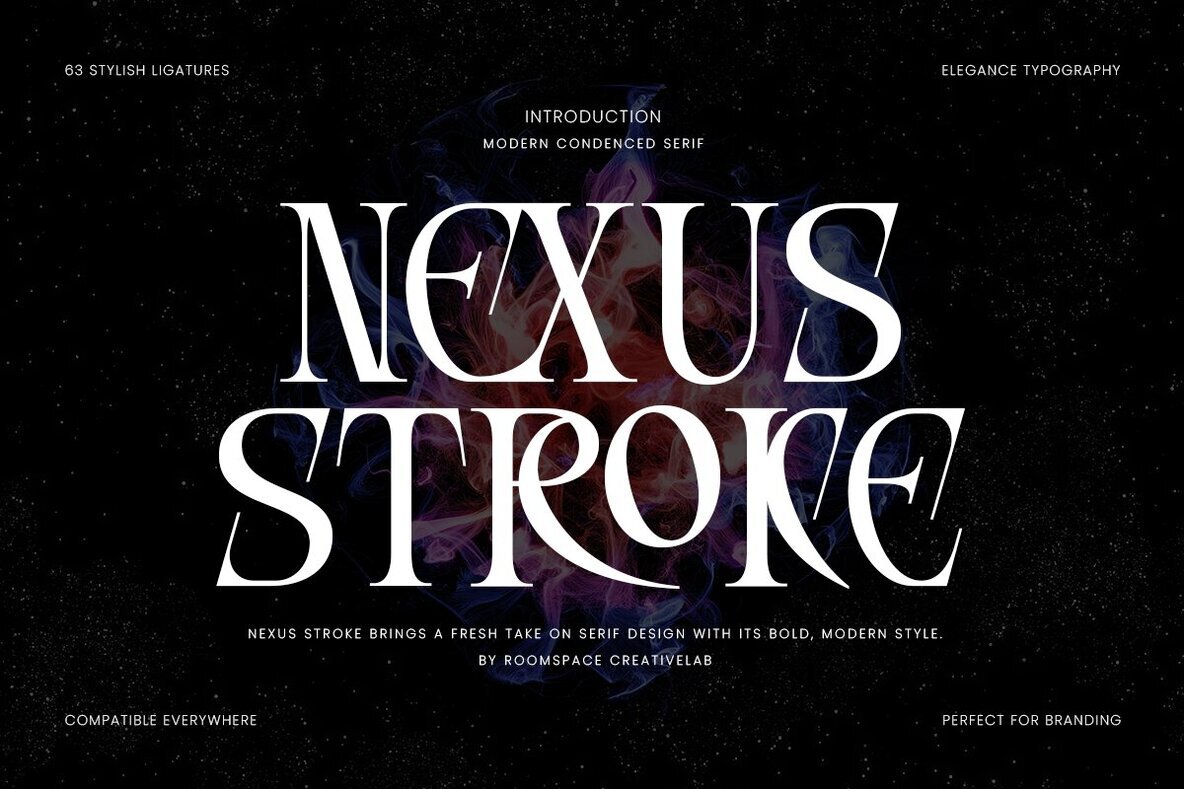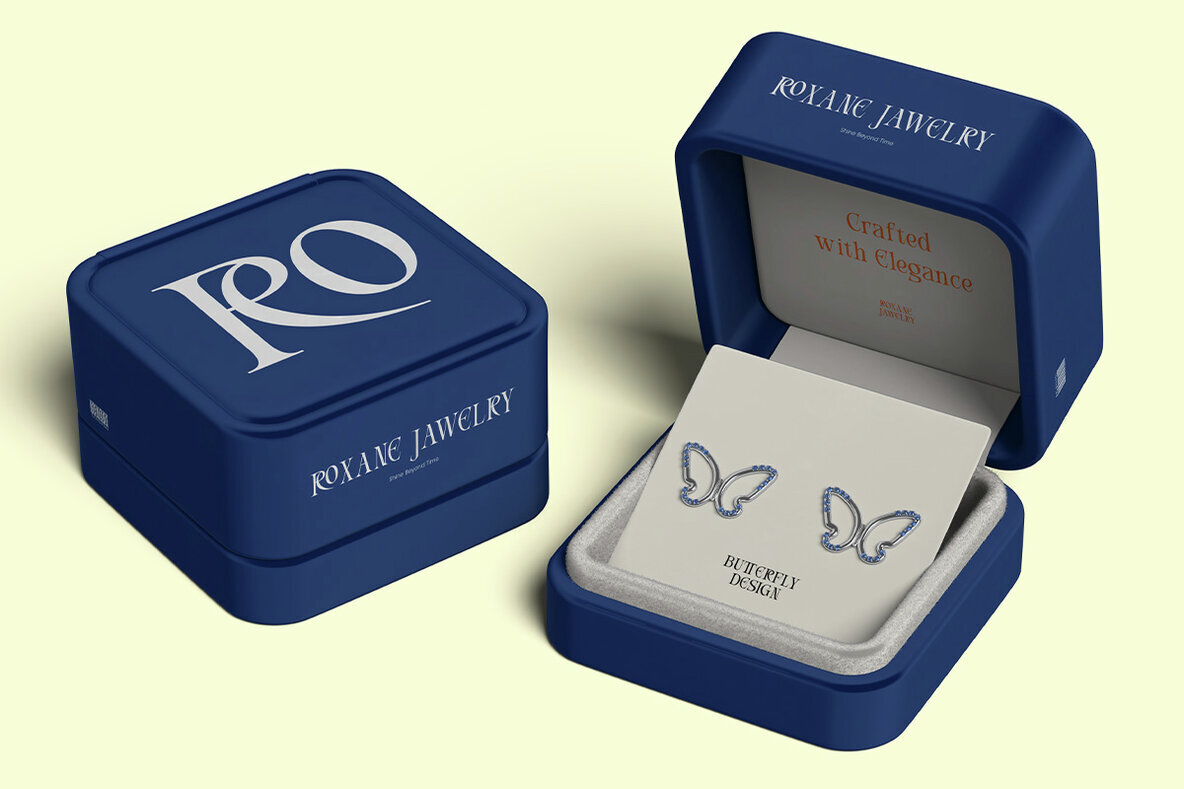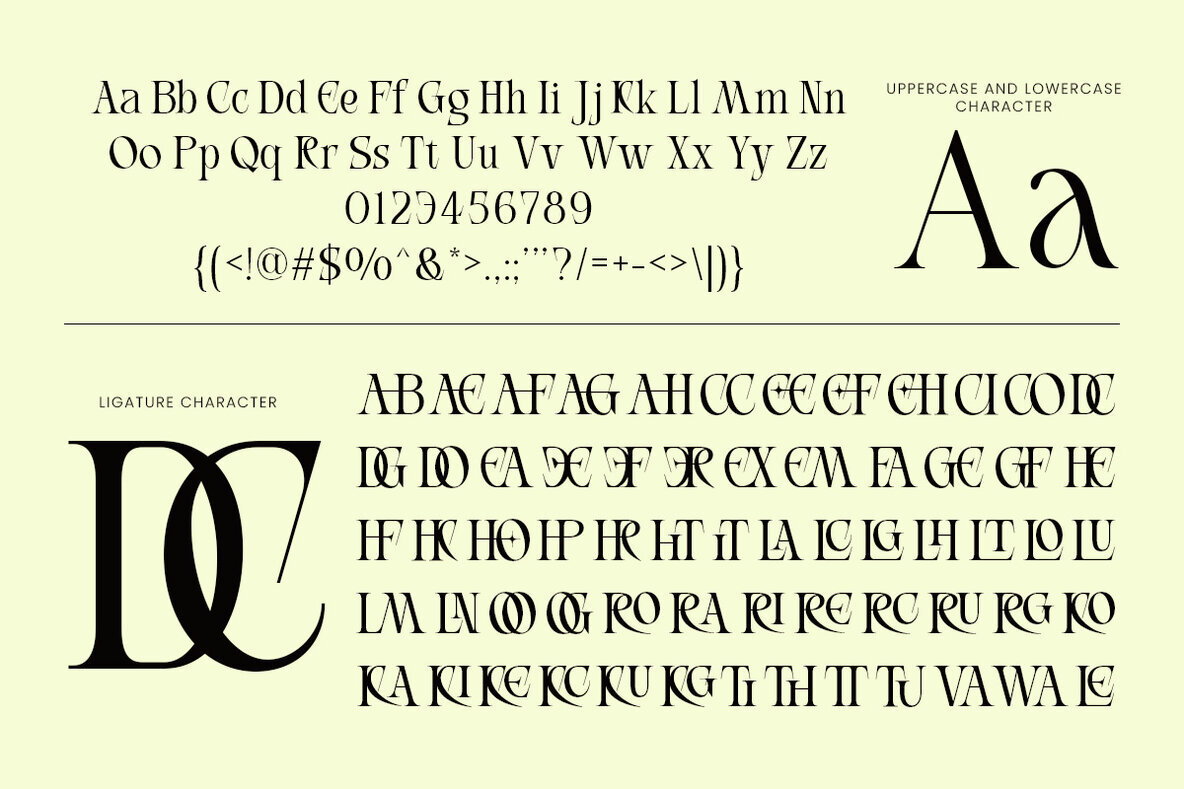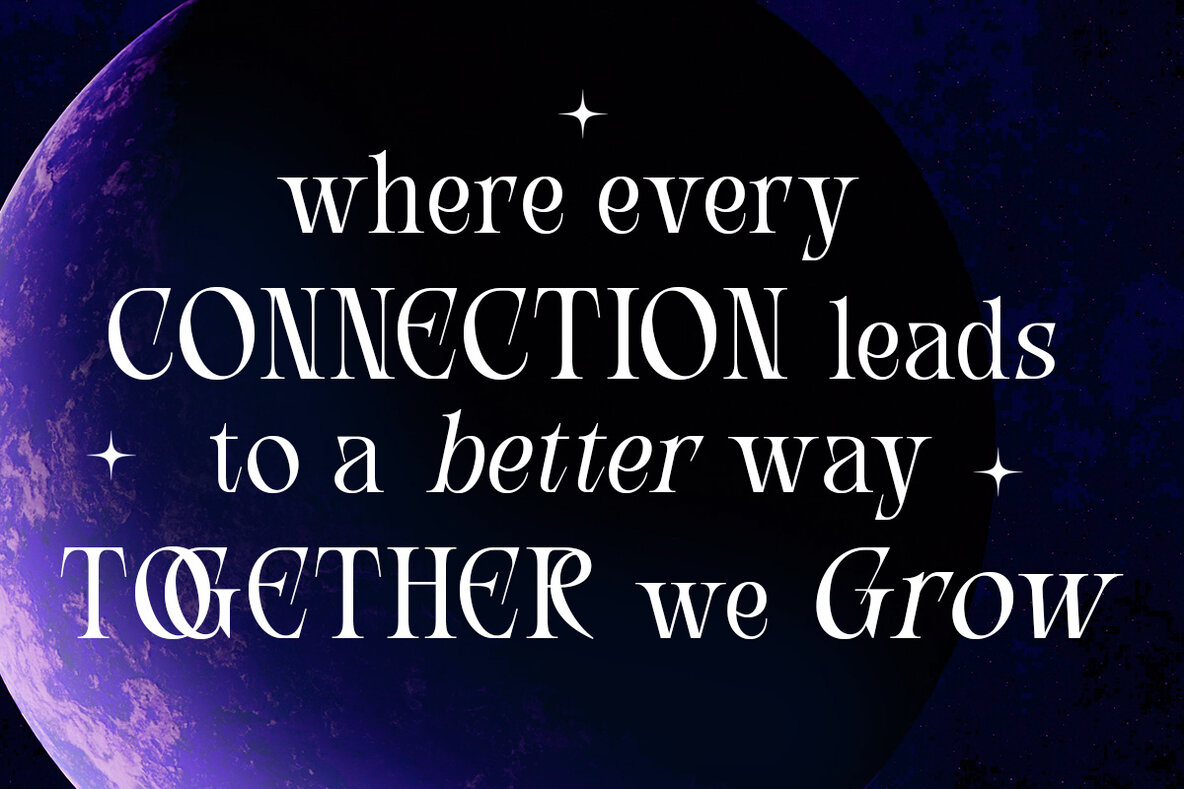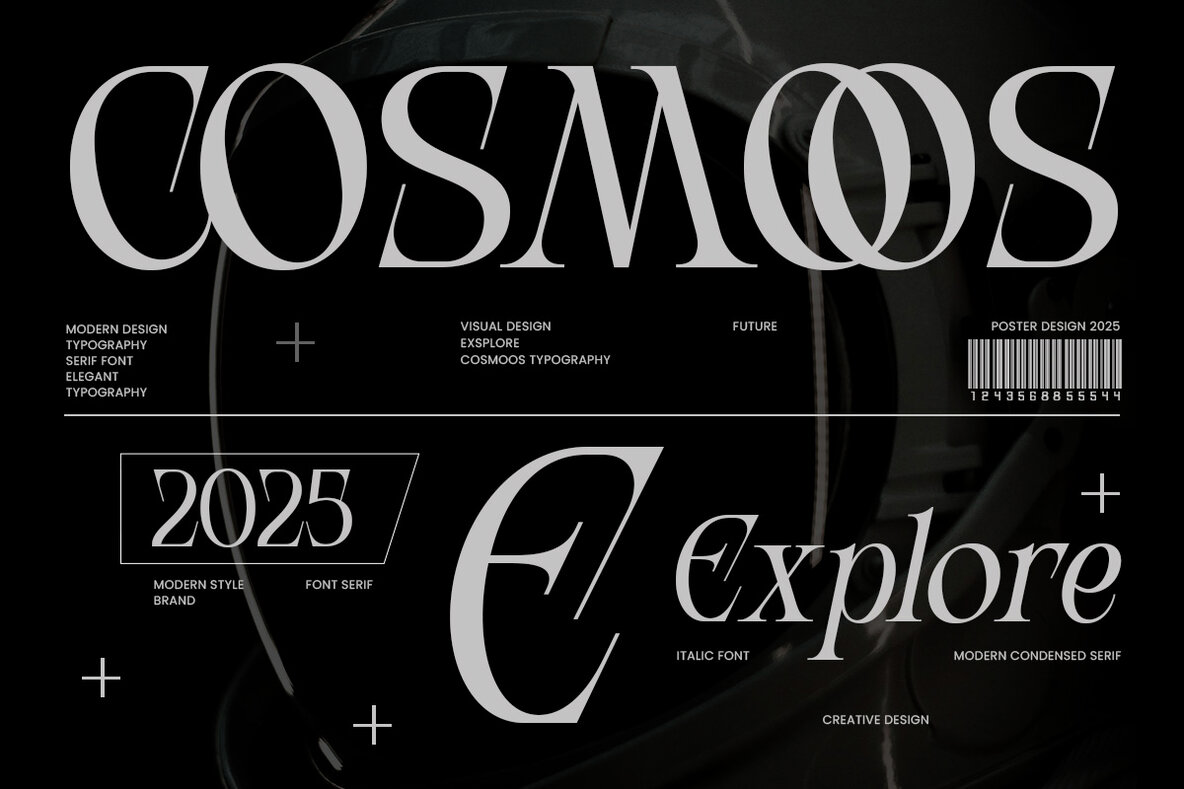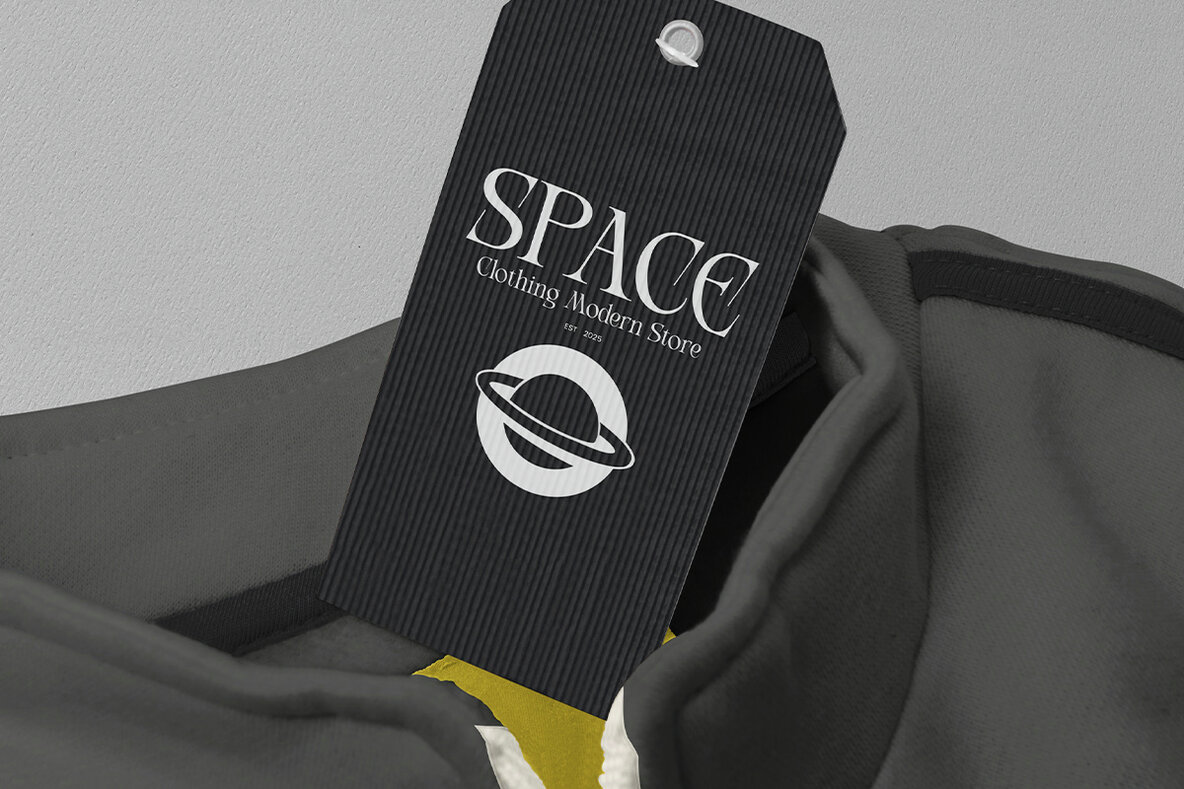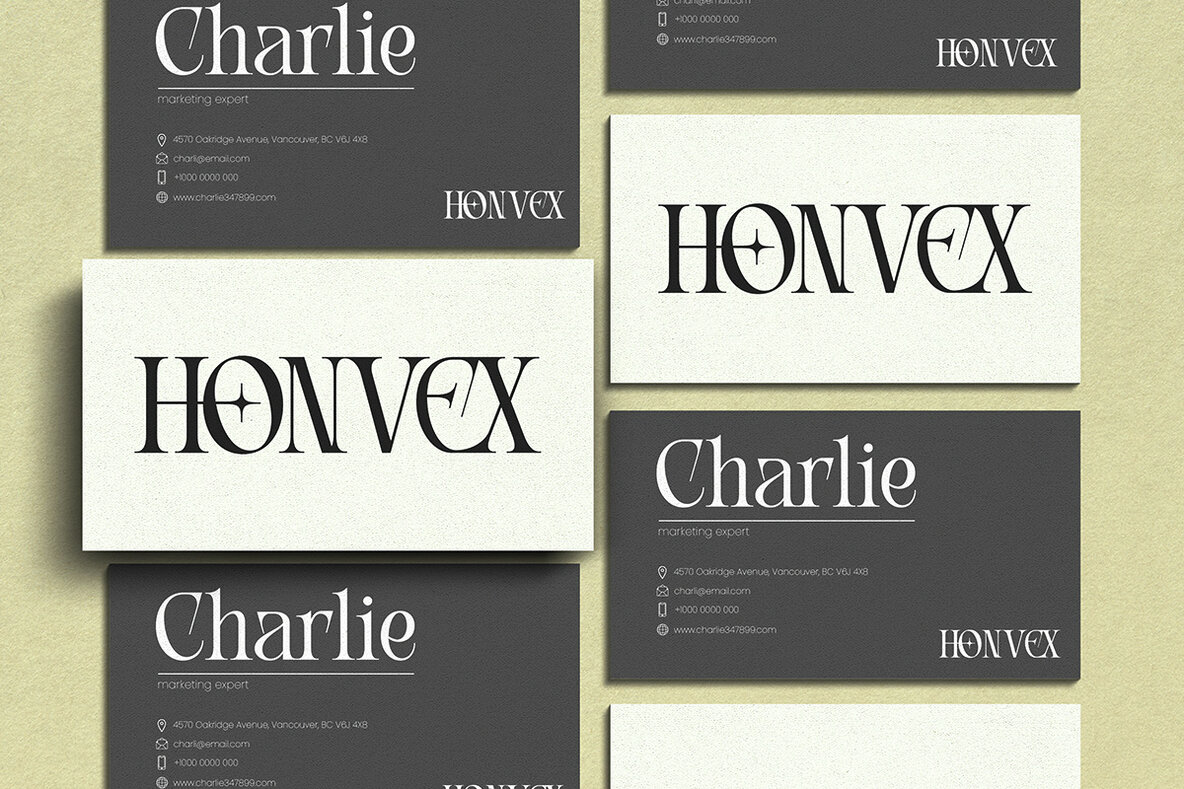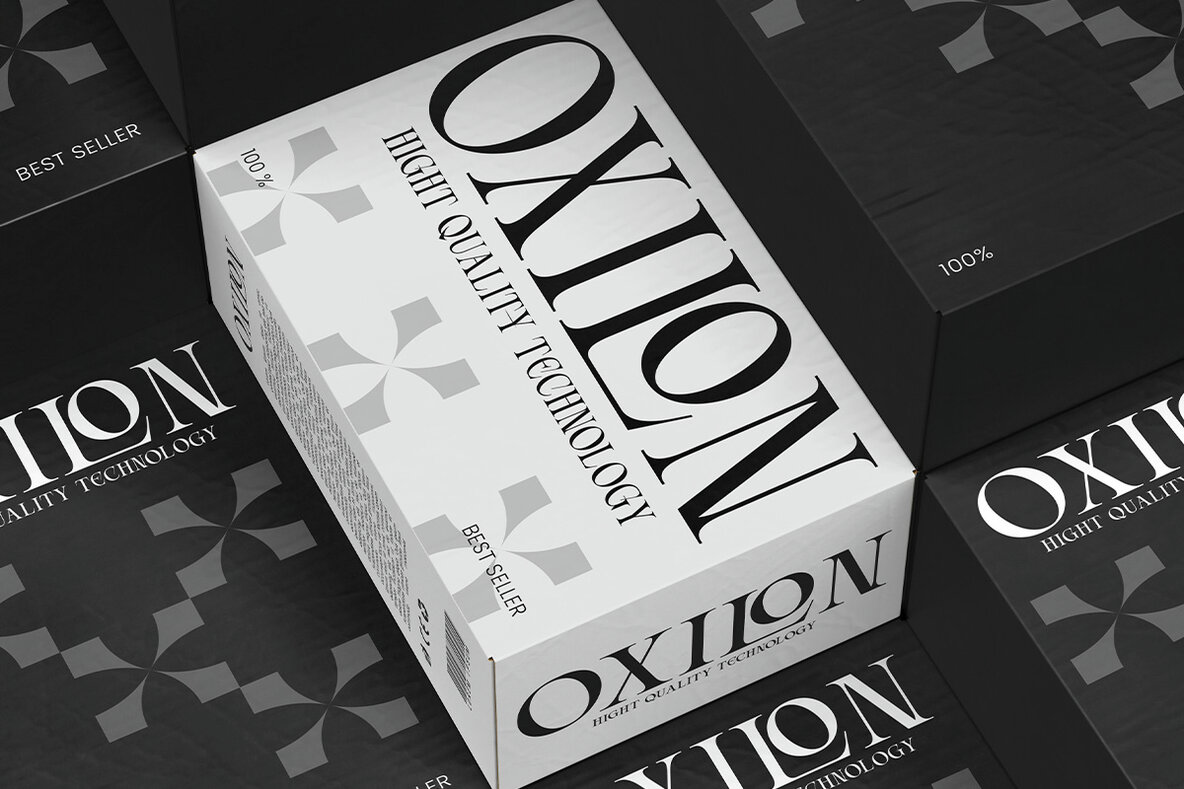
Nexus Stroke Font
Nexus Stroke is a sophisticated serif font that marries bold elegance with contemporary style. Featuring condensed letterforms and refined details, it includes 63 stylish ligatures that enhance its timeless yet innovative appeal. Its smooth kerning and graceful curves make it ideal for projects requiring readability without sacrificing impact. Perfect for logos, branding, and packaging, Nexus Stroke also shines in fashion editorials, social media graphics, wedding invitations, posters, and editorial layouts. This font is a superb choice for designers, business owners, and creatives wanting their visuals to leave a lasting impression.Nexus Stroke: Bold Elegance in a Modern Serif